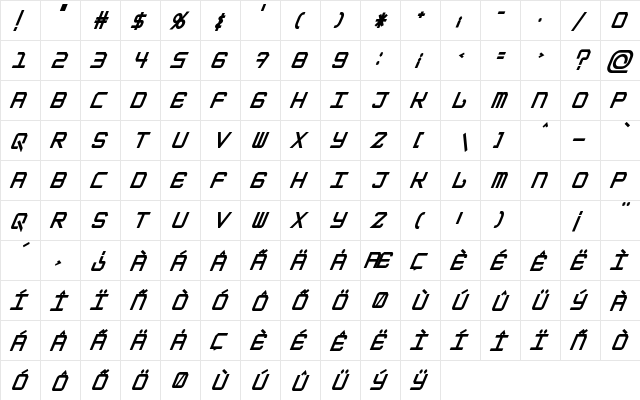
EpicenterBlackItalic Regular
| Foundry | Xerographer Fonts |
| Designer | Max Infeld Xerographer Fonts |
Design Context for EpicenterBlackItalic Typeface
EpicenterBlackItalic takes a measured approach to typography — its balanced proportions and neutral character make it a reliable workhorse for both digital and print work. The slanted form adds forward momentum and visual energy.